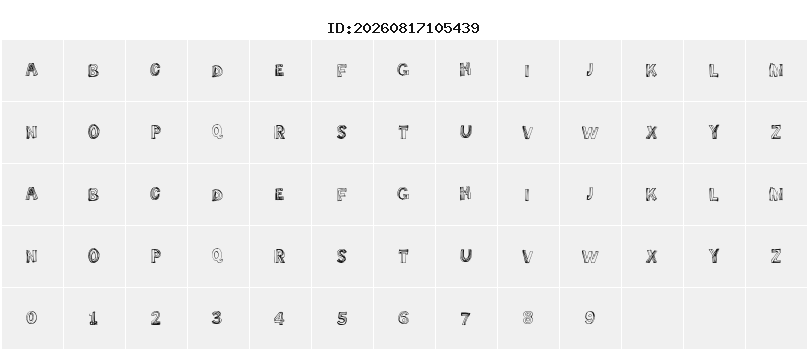
• Designer: Max Infeld
• Manufacturer: Xerographer Fonts
• Description: Made at Empire Coffee. Chico,CA lines hand drawn handdrawn caps capitals
SomeLines.ttf is a modern, elegant sans-serif font designed for ultimate readability and visual harmony. Perfect for branding, headlines, web design, and print materials.